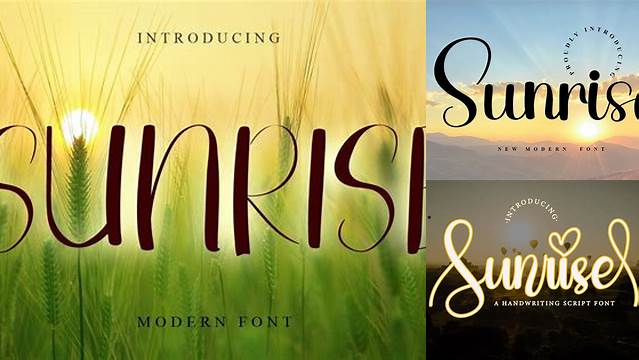
Sunrise Font Free Download: A Comprehensive Guide
Are you looking to add a touch of warmth, creativity, and uniqueness to your design projects? Then look no further, guys! The sunrise font is the perfect choice. This typeface evokes a sense of dawn, freshness, and new beginnings, making it ideal for various applications, from branding and logos to website design and social media graphics. In this comprehensive guide, we'll explore everything you need to know about sunrise fonts, including where to find them for free and how to use them effectively. Let's dive in and discover the beauty of sunrise typography!
What is a Sunrise Font?
So, what exactly is a sunrise font? Well, it's not a single, specific font but rather a category of typefaces that share similar characteristics, reminiscent of the early morning sun. These fonts often feature:
- Warm, inviting letterforms: Think soft curves, rounded edges, and friendly shapes.
- Handwritten or script-like styles: Many sunrise fonts have a personal, hand-crafted feel, adding a touch of authenticity.
- Modern and playful aesthetics: These fonts often blend contemporary design with a touch of whimsy, making them versatile for various projects.
Think about the feeling you get when you watch a sunrise – that sense of optimism, peace, and beauty. That's what a sunrise font aims to capture. They are a great option to make your designs stand out with a unique and appealing flavor.
Why are these fonts so popular, you ask? Well, they are visually appealing, easy to read, and very versatile. These fonts create a sense of approachability and warmth, making them perfect for various creative endeavors. Whether you are crafting a logo, designing a website, or putting together marketing materials, a sunrise font can add that special touch that grabs attention and leaves a lasting impression. They're not just typefaces; they're tools that can help convey a specific mood or message, like a friendly invitation or a creative spark. So, if you are looking to bring a bit of sunshine into your designs, a sunrise font might be just what you need.
Where to Find Free Sunrise Fonts
- Font Squirrel: Font Squirrel is another excellent website that offers high-quality, free fonts for commercial use. They have a curated selection of fonts, making it easier to find the perfect one for your project. Their licensing information is also clearly stated, which is a big plus.
- DaFont: DaFont is a popular website with a massive collection of fonts, including many sunrise-inspired styles. However, be sure to check the license agreement for each font, as some are only free for personal use. With its vast library, you're likely to stumble upon hidden gems and unique typefaces.
- Creative Market (Free Goods): Creative Market offers a selection of free goods every week, including fonts. This is a great way to discover new and unique fonts that you might not find elsewhere. Keep an eye on their freebies section to snag some amazing deals.
When downloading fonts, it's essential to ensure you're getting them from a reputable source to avoid malware or other issues. Stick to well-known font websites and always scan downloaded files with an antivirus program, just to be on the safe side. Safety first, guys!
How to Use Sunrise Fonts Effectively
Okay, you've found some amazing sunrise fonts – that's awesome! But now, how do you actually use them effectively in your designs? Here are some tips and best practices to help you make the most of these beautiful typefaces:
So, go ahead and explore the world of sunrise typography. Download some free fonts, experiment with different styles, and let your creativity shine! With the right sunrise font, you can bring a touch of sunshine to your designs and create something truly special. Happy designing, guys! Remember, the key is to have fun and let your personality shine through in your work. Sunrise fonts are just one of the many tools available to you, so use them wisely and creatively. Your designs will thank you for it!